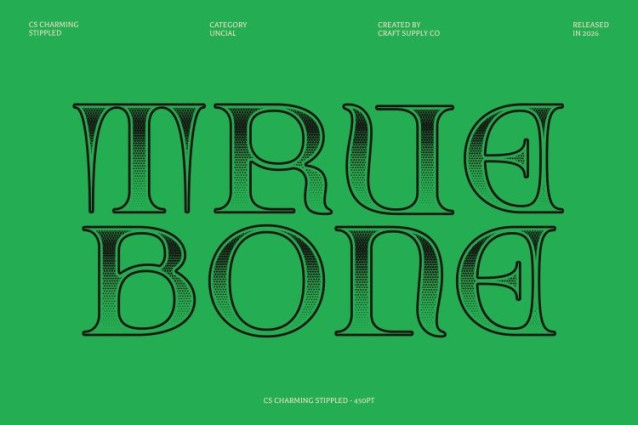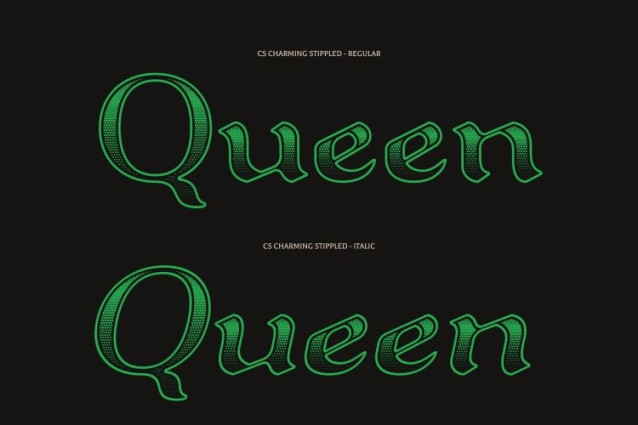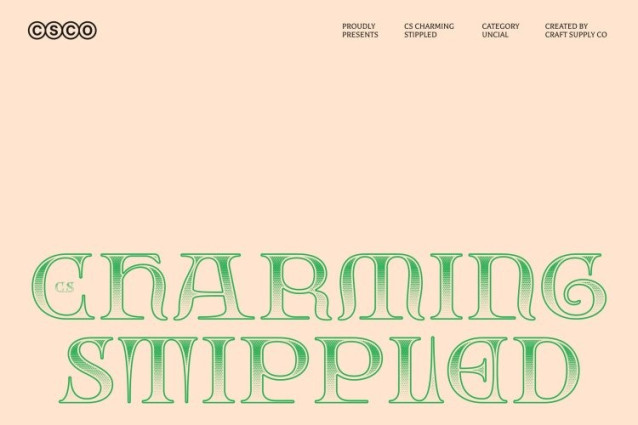
CS Charming Stippled Font
CS Charming Stippled Font – This is a classic display font that beautifully showcases uncial forms inspired by medieval handwriting. Its smooth curves and bold strokes reflect the elegance of ancient manuscript lettering, creating a nostalgic and refined atmosphere. Enhanced with a stippled texture, the font gains subtle depth and a handcrafted engraved feel, enriching its historical charm while maintaining clarity and grace.
Artistic Letterforms with Textured Detail
The distinctive uncial shapes give a unique and artistic personality. Each letter echoes the careful craftsmanship found in traditional scriptoria, where calligraphy was treated as an art form. The added stippled effect introduces a delicate dotted surface that enhances the visual richness of the letterforms, reinforcing the sense of authenticity and historical beauty.
Historic Style with Creative Versatility
Balancing traditional elegance with expressive character, this font offers a timeless typographic presence. Its rounded shapes and textured detailing create a warm and inviting look that feels both classic and artistic, making it suitable for designs that celebrate heritage and craftsmanship.
Perfect for Elegant and Heritage-Inspired Designs
This is ideal for wedding invitations, book covers, heritage branding, greeting cards, and decorative typography. Its medieval-inspired forms combined with the subtle stippled texture bring a refined historical atmosphere to any project, helping designs feel elegant, memorable, and full of character.